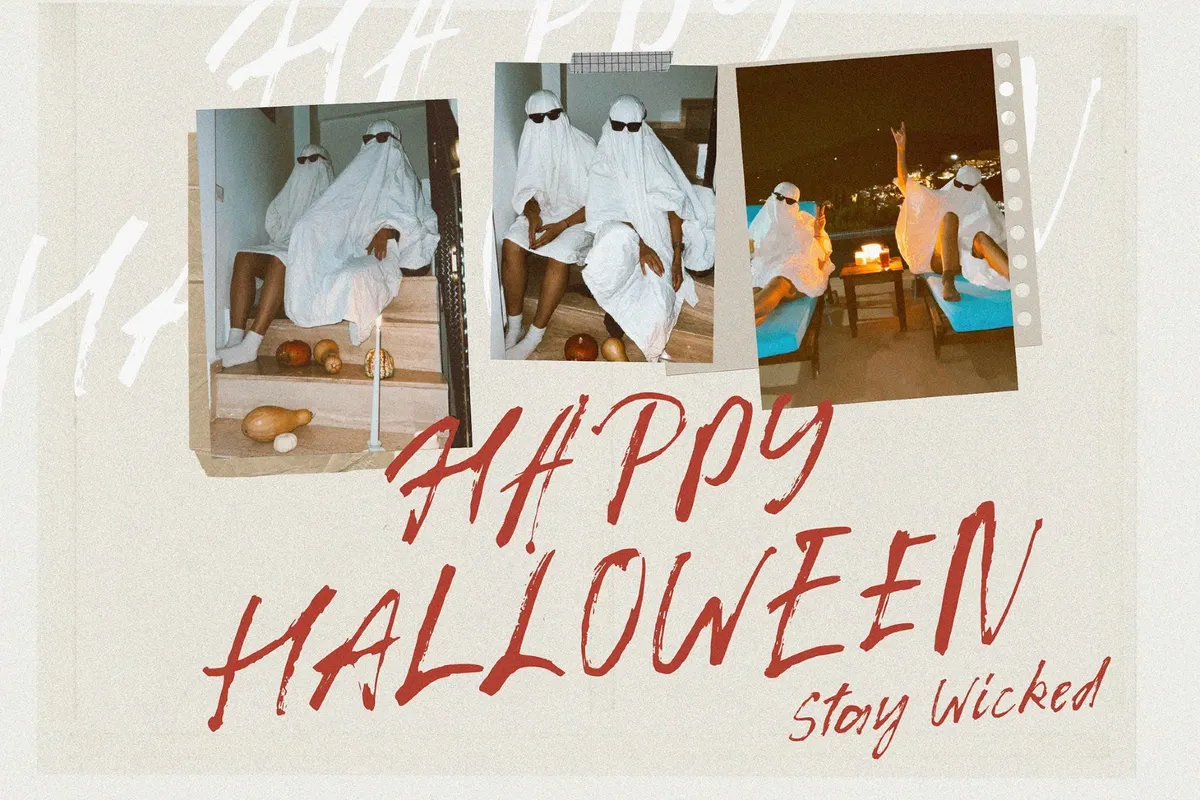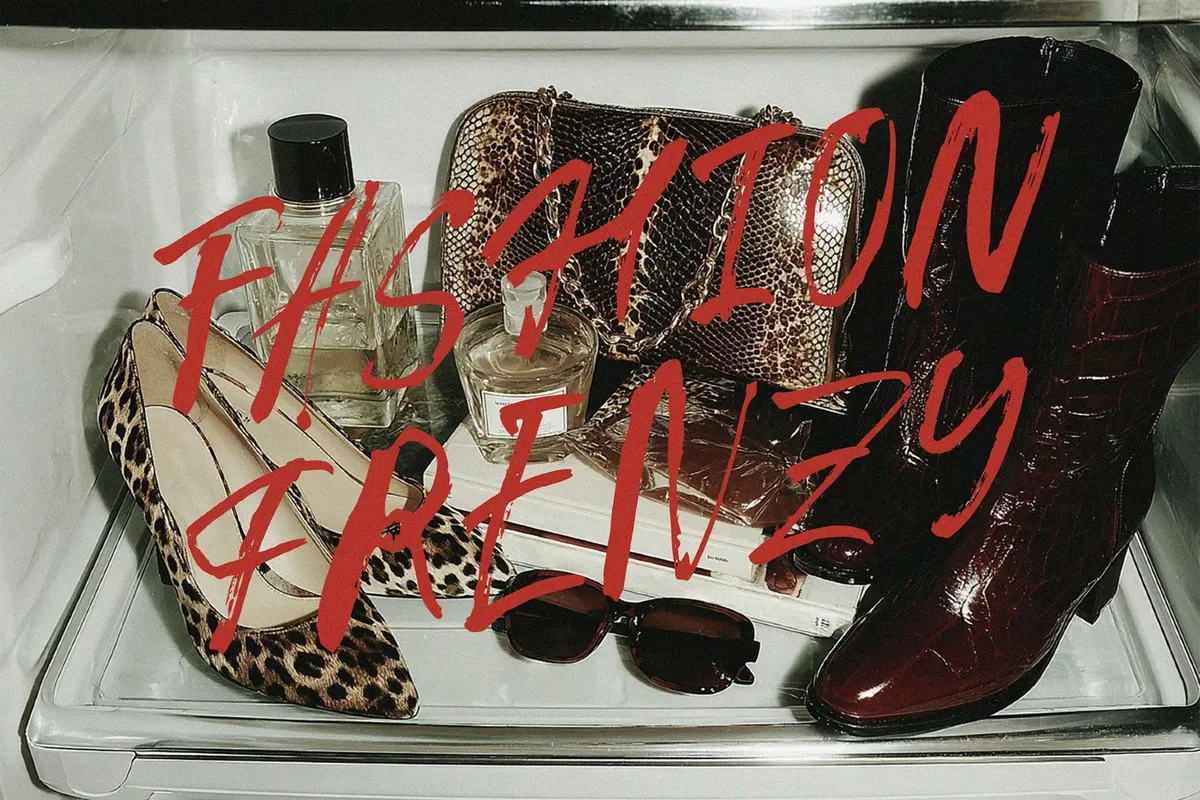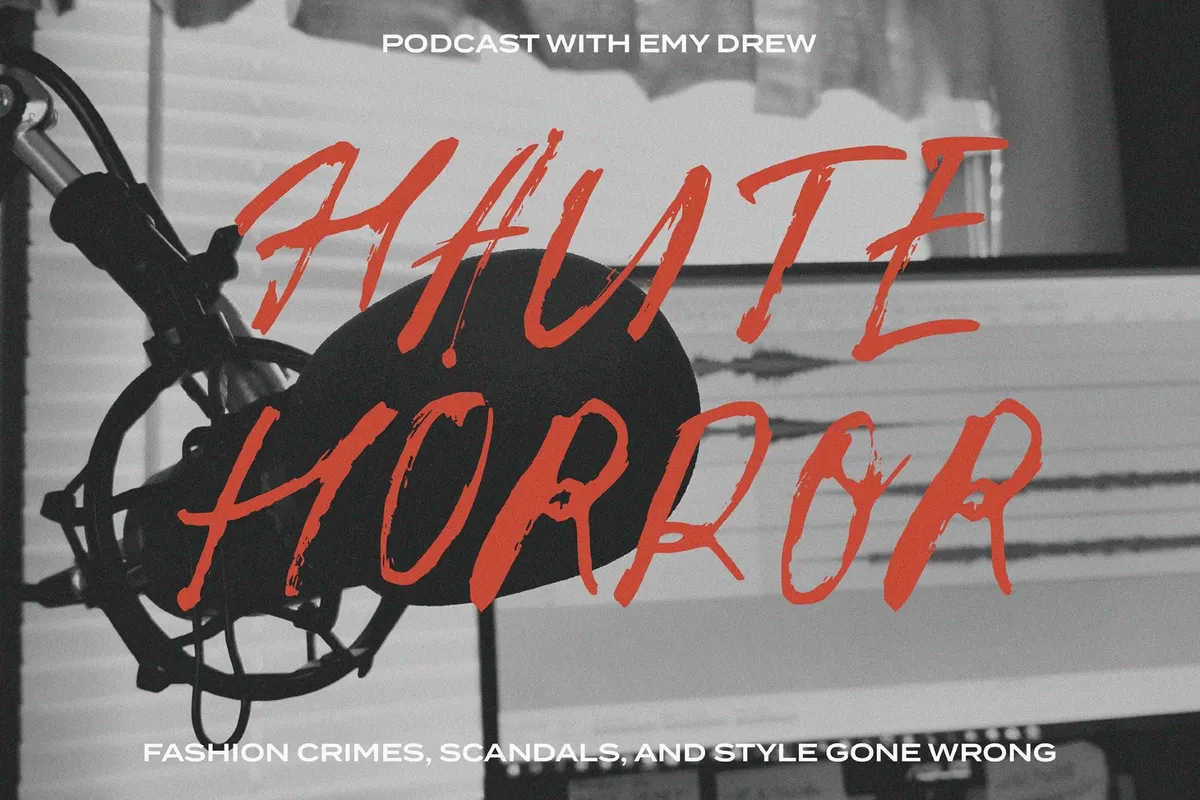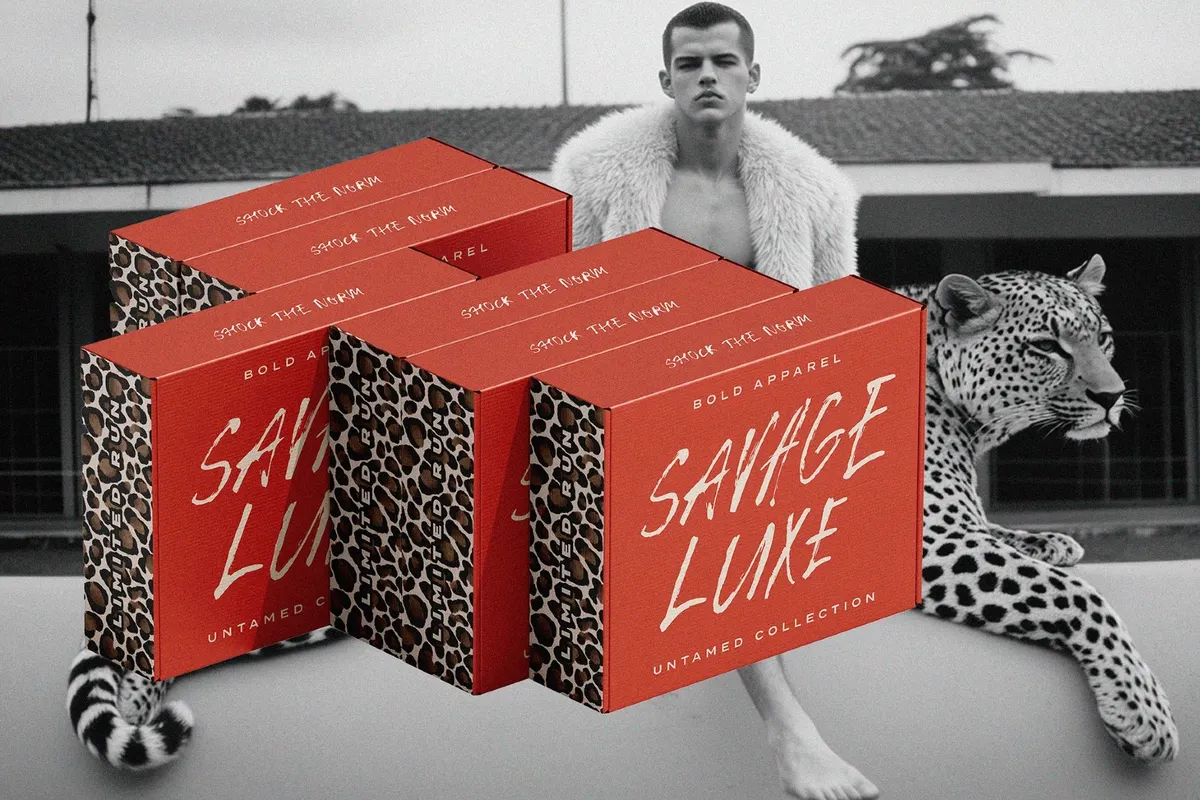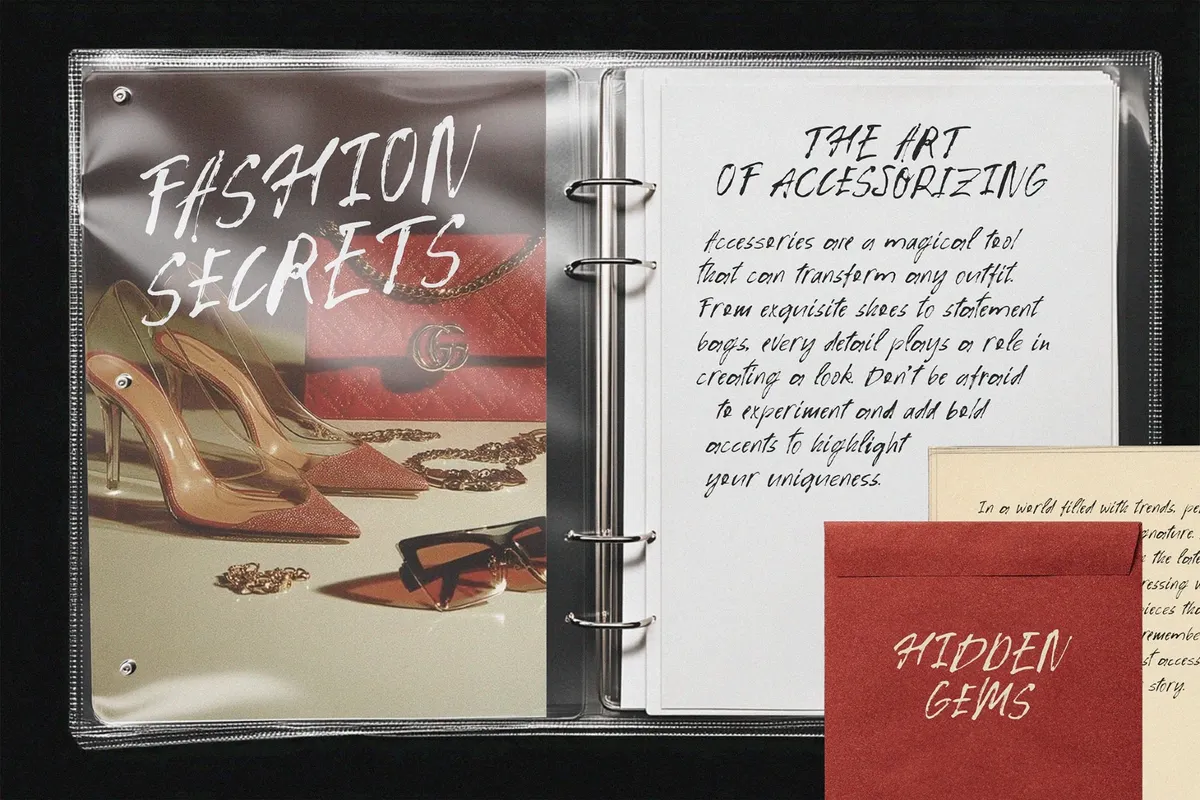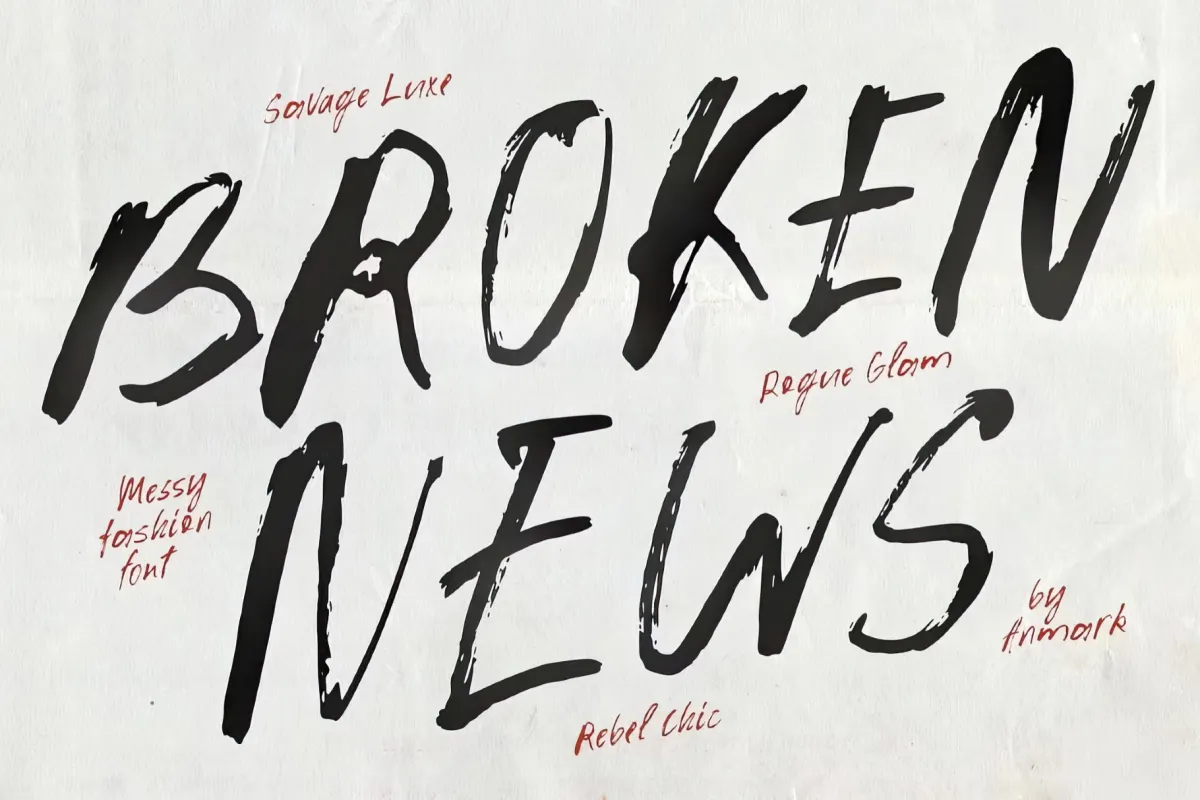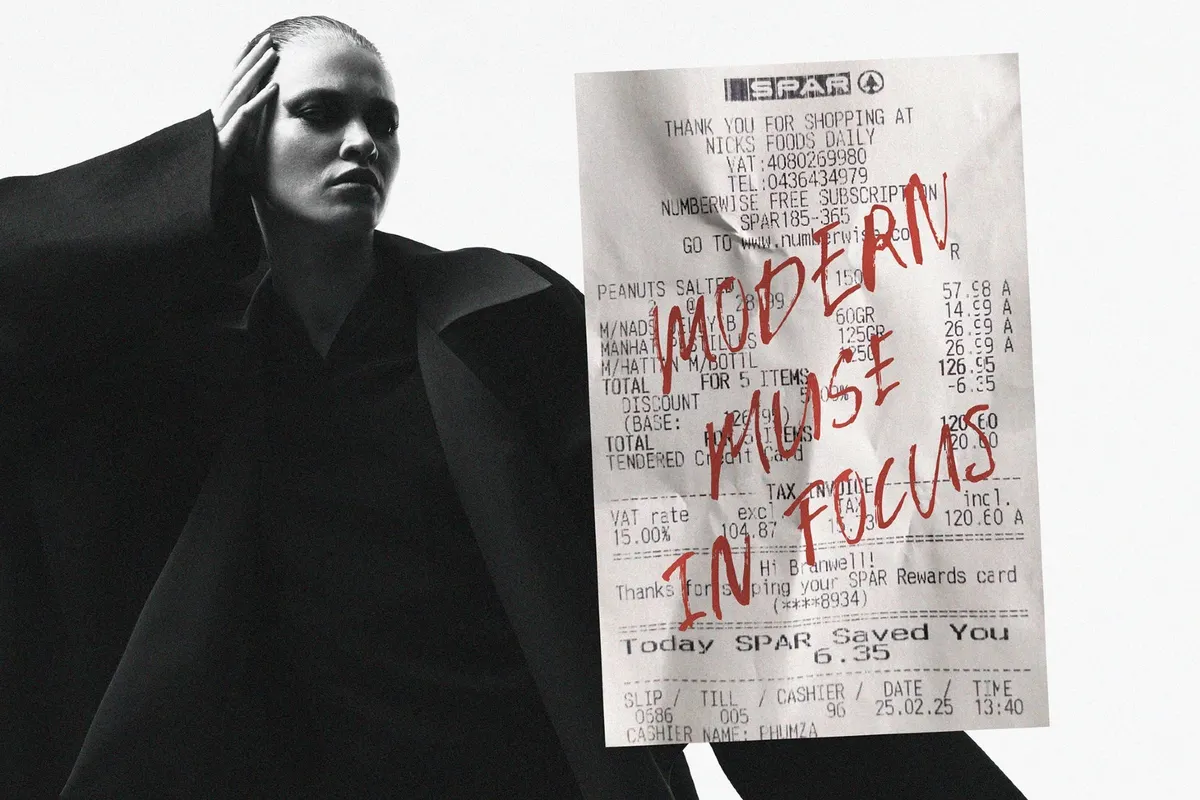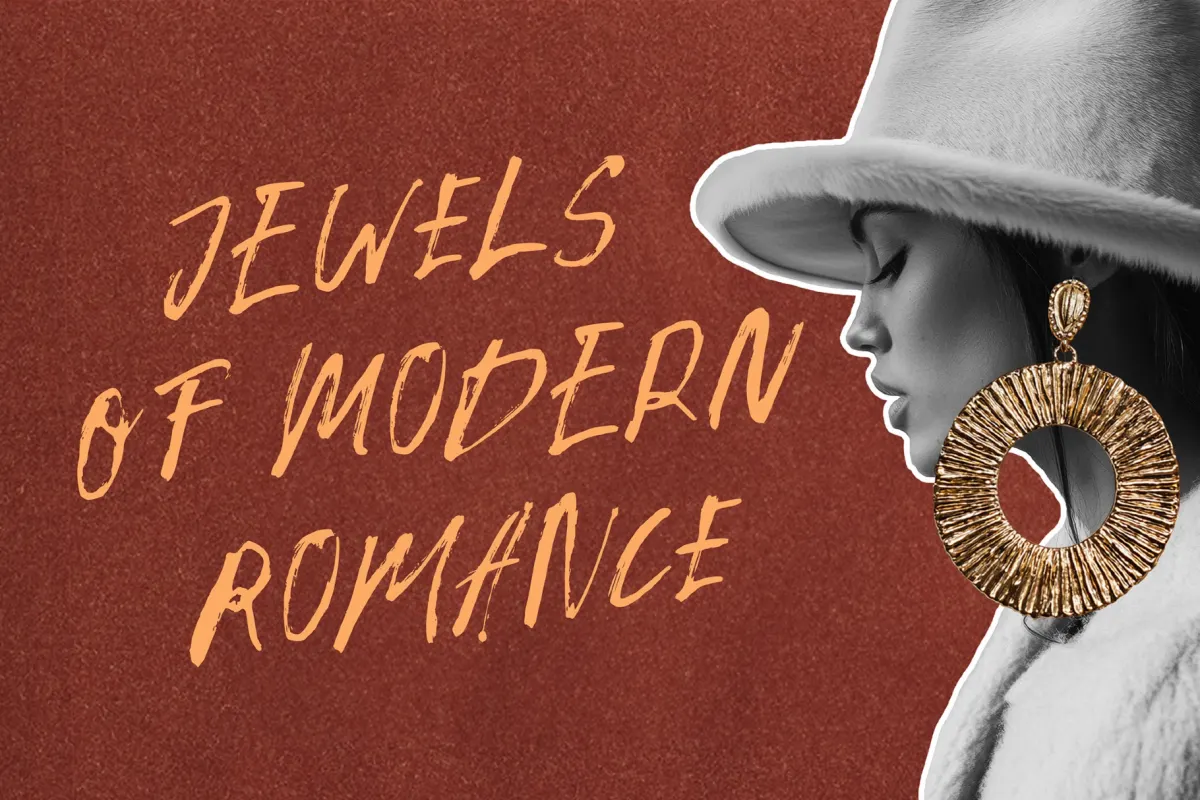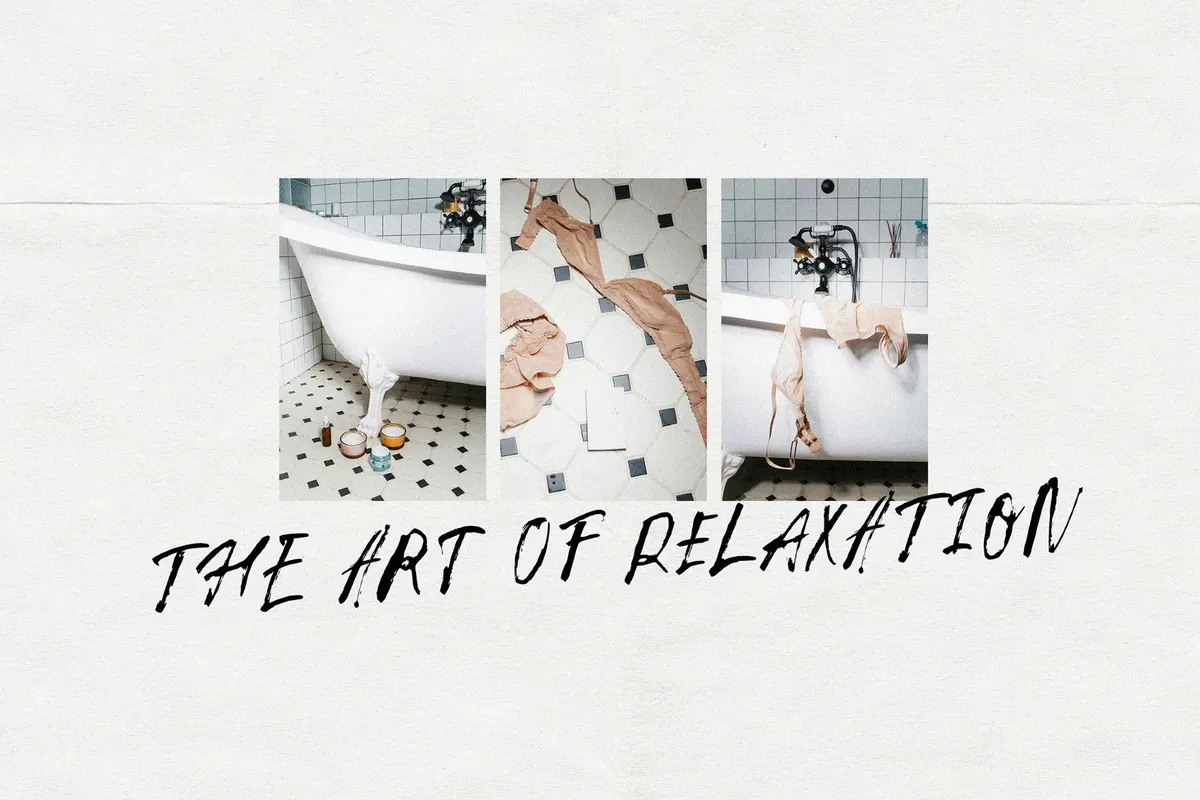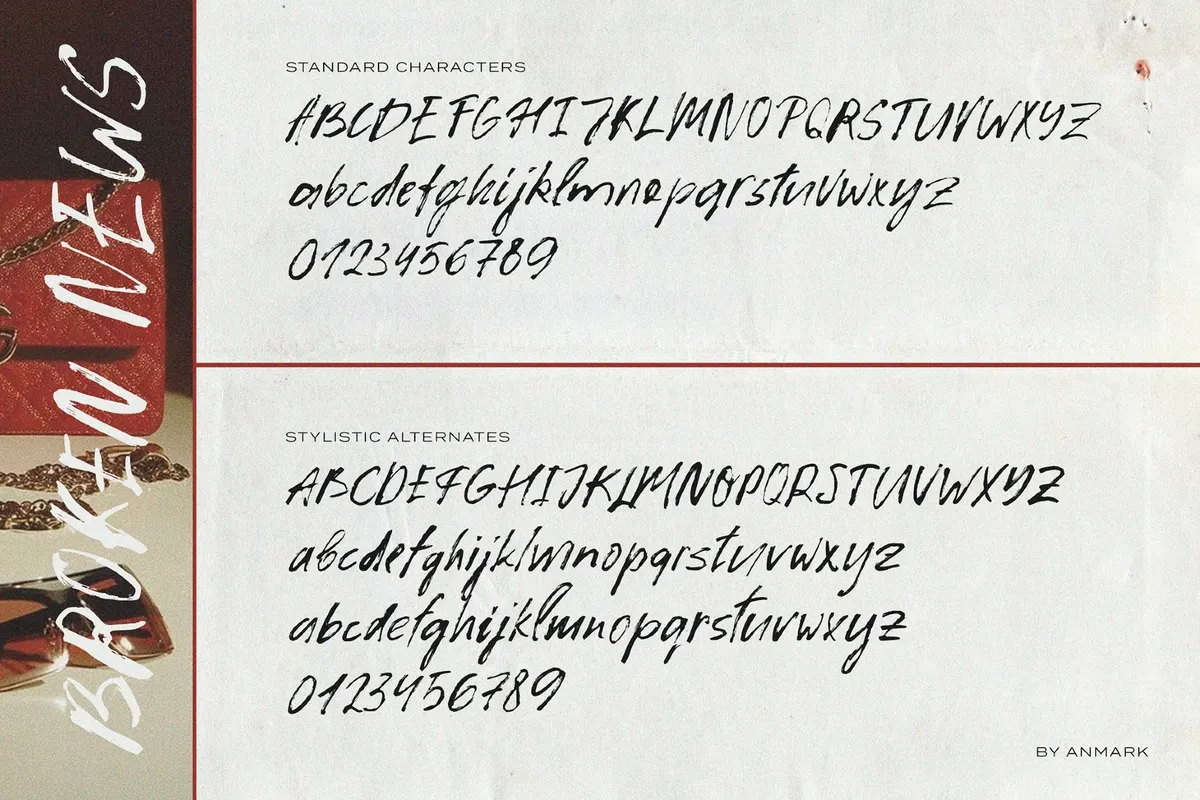
Broken News | Messy Handmade-Vibe Font
BrokenNews
This one is a messy hand-drawn display voice dragged from photocopied flyers, marker-scrawled gig posters, and battered notebook margins. The strokes hit fast and uneven, with dry-brush breaks, scraped edges, and blunt terminals.
Broken News plays two games at once: readable and unruly. Alternative capitals and numerals let you steer the mood from cleaner stencil-ish hits to shakier, more frantic marks, while two lowercase sets give enough room to shift pacing inside the same line.
- Album artwork — band names, tracklists, back covers, tour dates.
- Gig posters — headliners, venue names, ticket tiers, supporting acts.
- Zines and editorial — section openers, pull quotes, cover lines, captions.
- Streetwear graphics — tees, patches, sticker sheets, hang tags.
- Skate and BMX branding — deck stamps, shop marks, event flyers, sponsor walls.
- Packaging — hot sauce labels, coffee bags, craft soda wraps, small-run boxes.
- Social content — headers, thumbnails, promo tiles, quote cards.
- Film and motion — title cards, chapter slates, on-screen notes, teaser frames.
- Retail and pop-ups — window lettering, price cards, shelf talkers, wayfinding.
- Alternative uppercase and numbers set.
- Two lowercase sets for versatile styling.